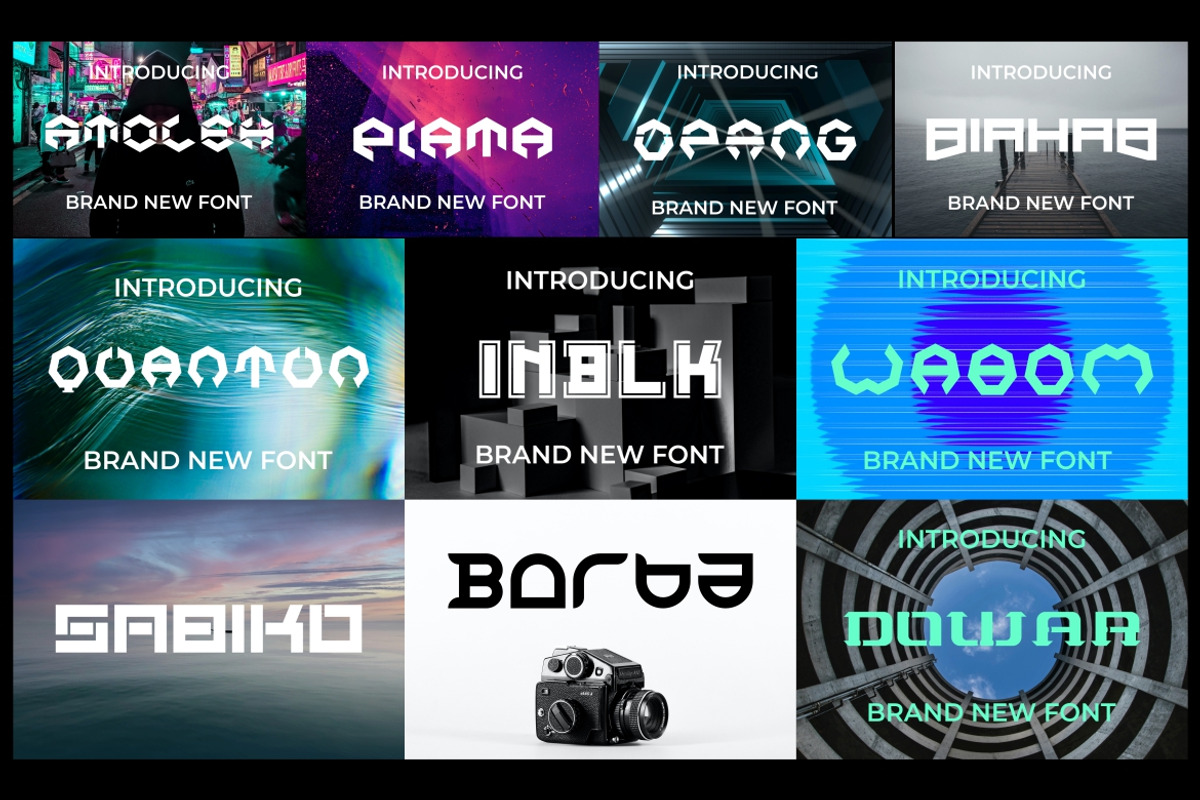
Font Bundle Techno Font
Font Bundle Techno Font - Modern Font is a bold and authentic display font. The font is suitable for any branding project like logo, t-shirt printing, esport, and many more. outstanding in a wide range of contexts.